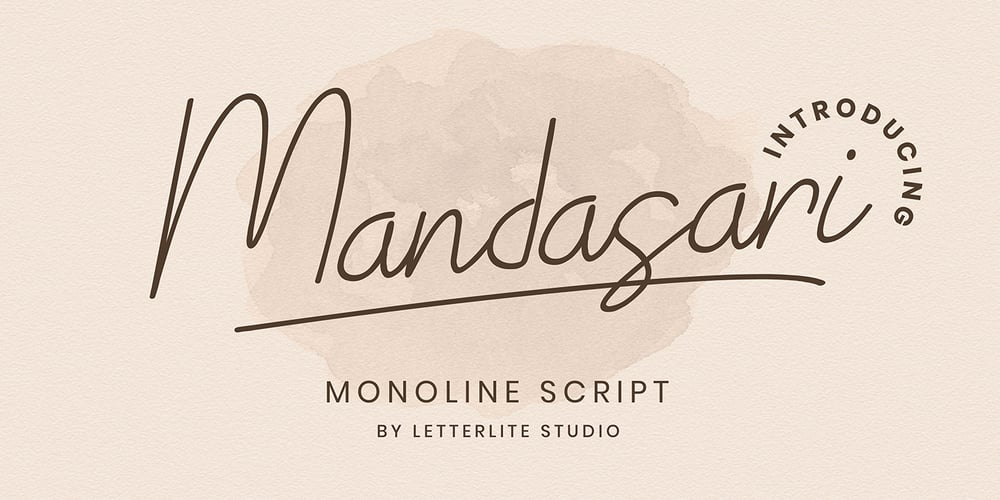
Mandasari Script
Mandasari Script font
Mandasari Script Font Family was designed by Apriliyanto . and published by Letterlite Studio. Mandasari Script contains 1 styles and family package options. Mandasari Script is a stylish and delicate script font. It has a clean, thin and smooth vibe. Fall for its ravishing style and use it to create gorgeous wedding invitations, beautiful stationary art, eye-catching social media posts, and much more! Features :- Mandasari Script (TTF)- Standard & Multilingual glyphs- Ligature- Works on PC & Mac- Simple installations- Accessible in the Adobe Illustrator, Adobe Photoshop, Adobe InDesign, even work on Microsoft Word.- PUA Encoded Characters – Fully accessible without additional design software.- Fonts include multilingual support for; Afrikaans, Danish, Dutch, French, German, Indonesian, Irish, Italian, Norwegian, Portuguese, Scottish, Spanish, Swedish, Swiss.Hope you enjoy with our font!